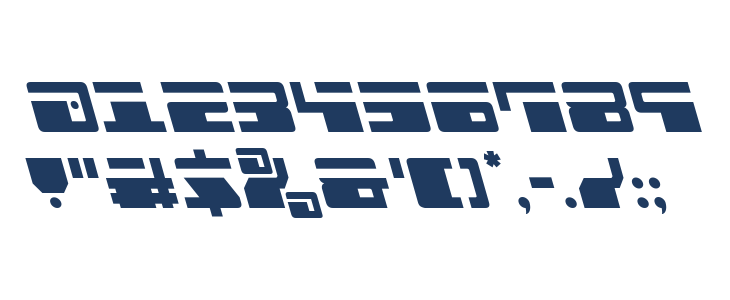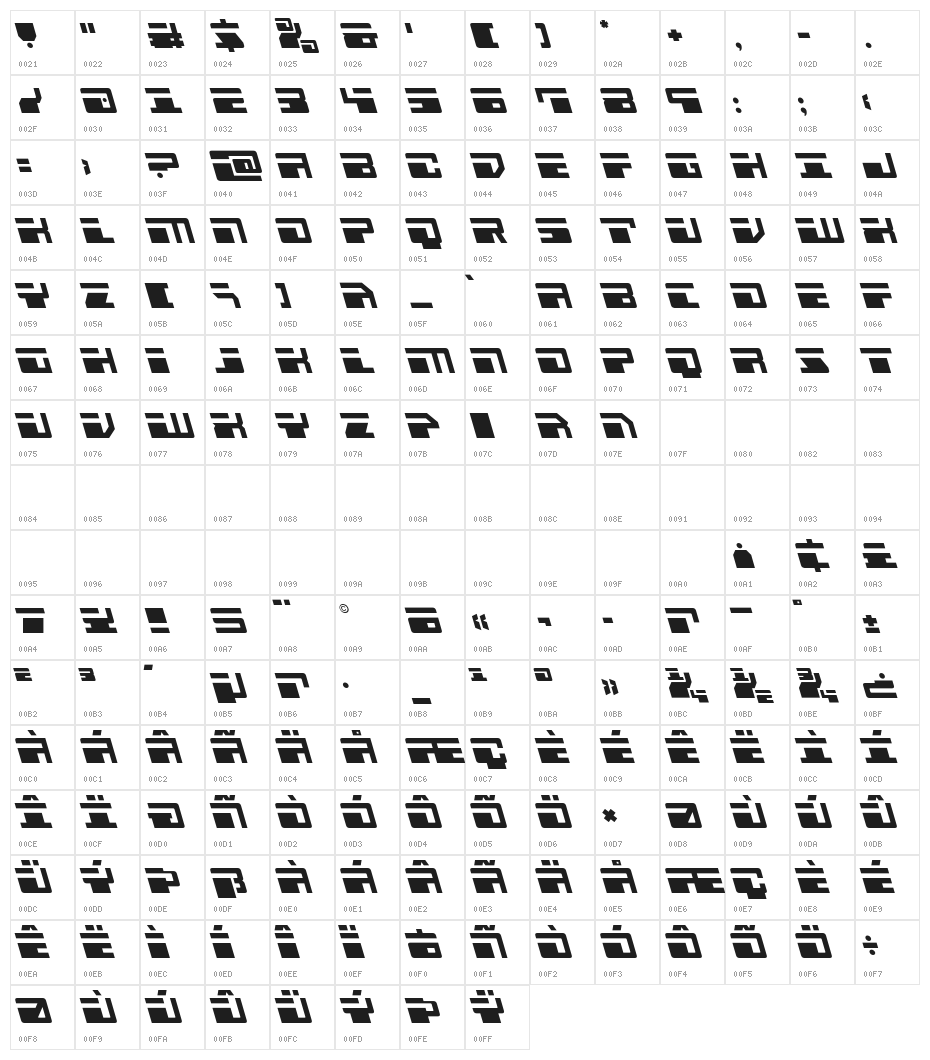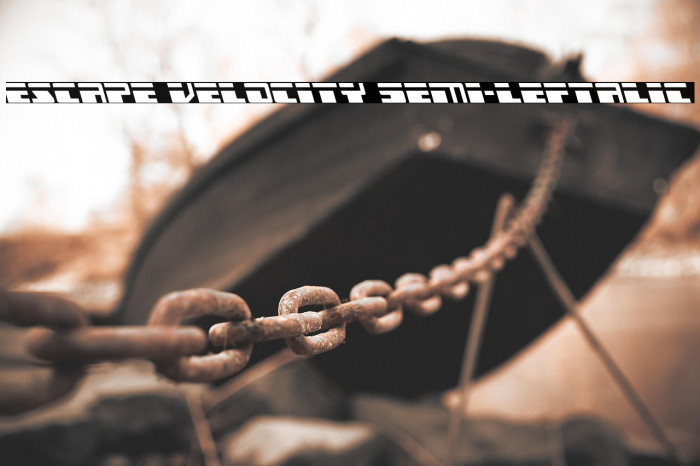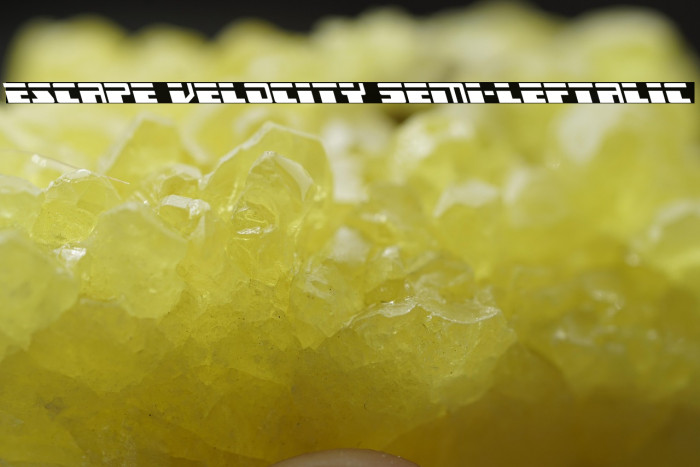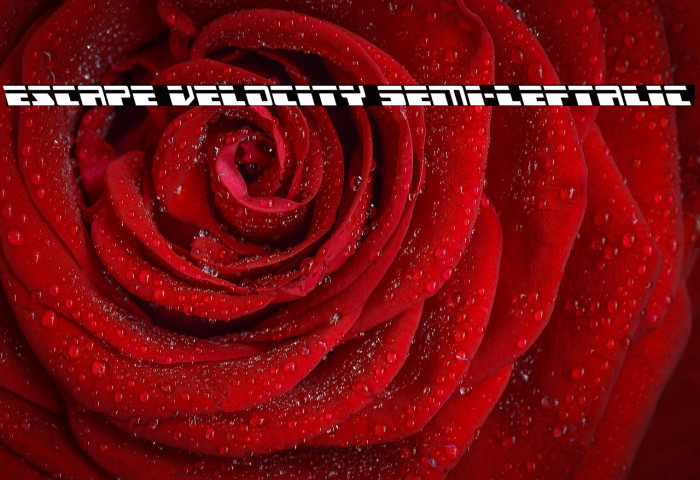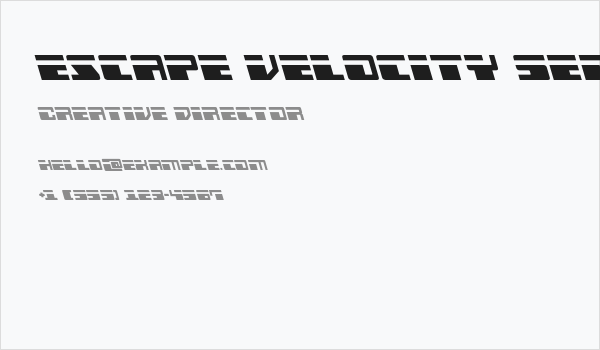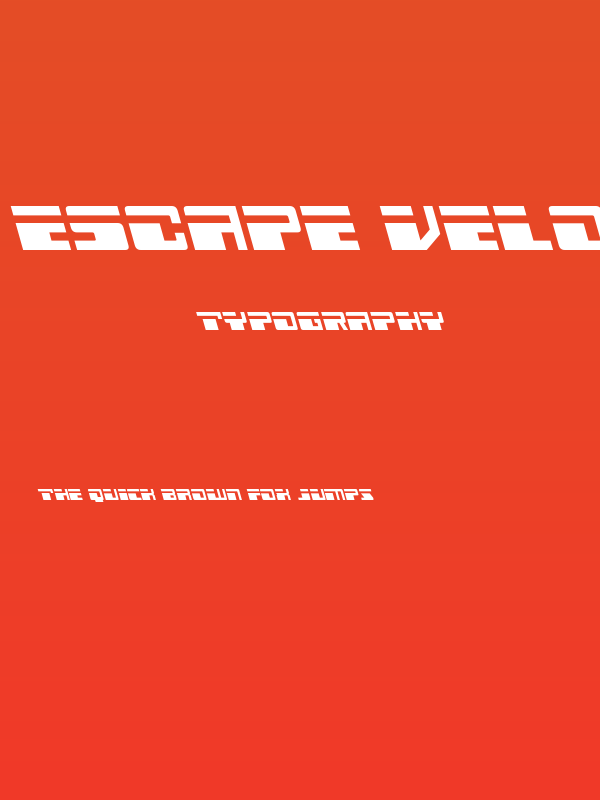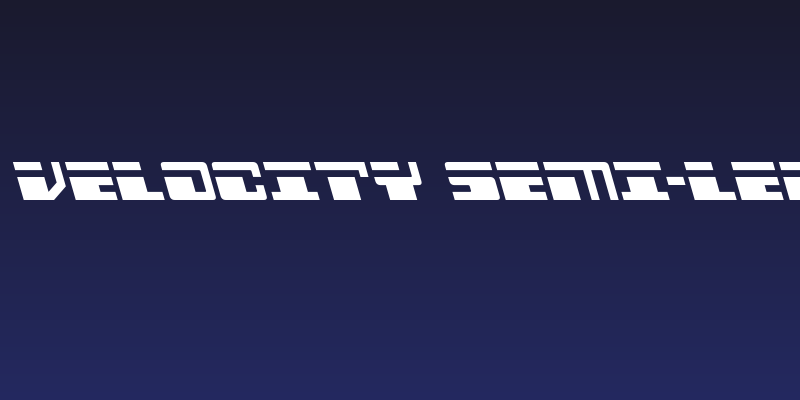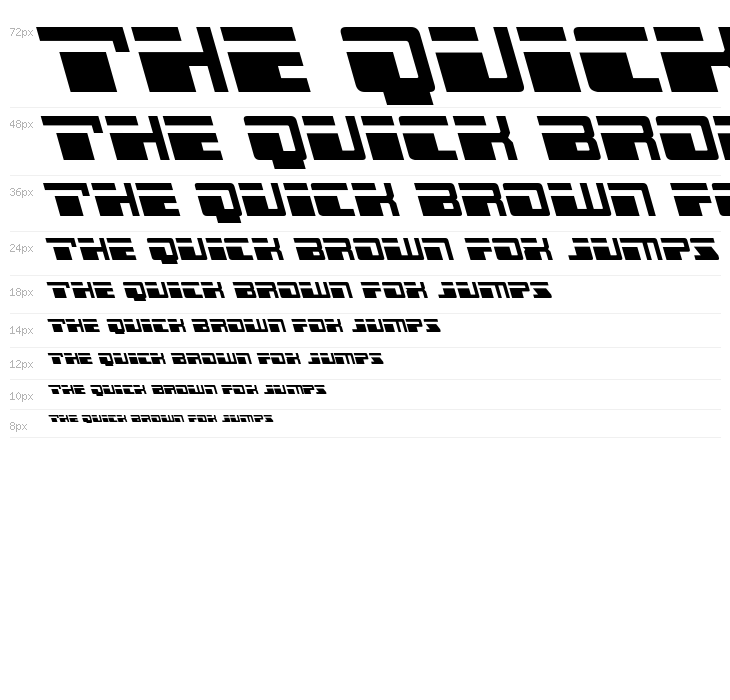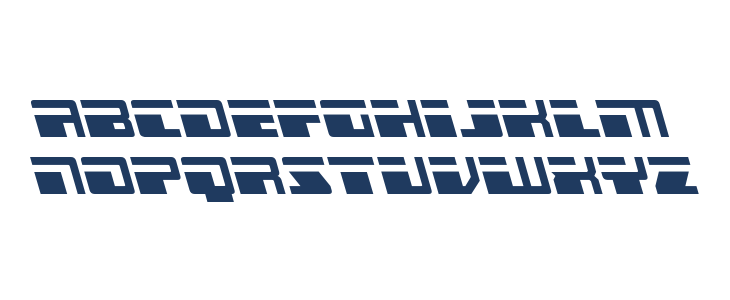
Escape Velocity Semi-Leftalic Font
Escape Velocity Semi-Leftalic Description
This font features a futuristic and angular design, characterized by its bold and geometric letterforms. The characters are constructed with sharp edges and a distinct slant, giving them a dynamic and forward-moving appearance. The uppercase and lowercase letters maintain a consistent style, with a unique cut-out pattern that adds to the modern aesthetic. The numerals and special characters follow the same design principles, ensuring a cohesive look across all glyphs. This font's strong presence and unique style make it suitable for projects that require a bold and contemporary look.
| Proposed Projects | Ideal for sci-fi themed projects, video game titles, technology branding, and modern posters. |